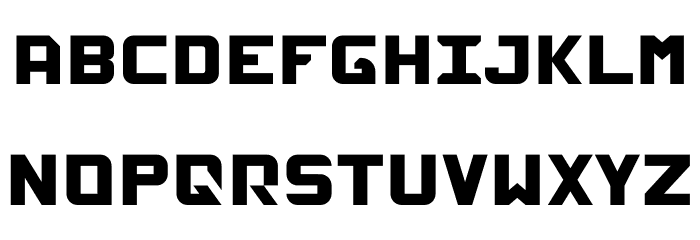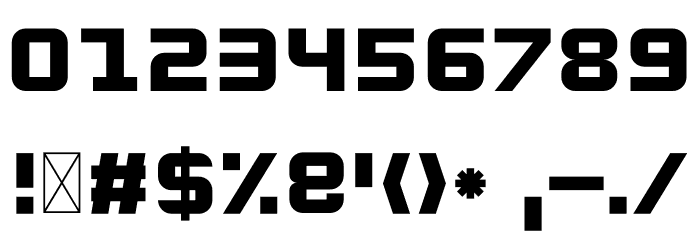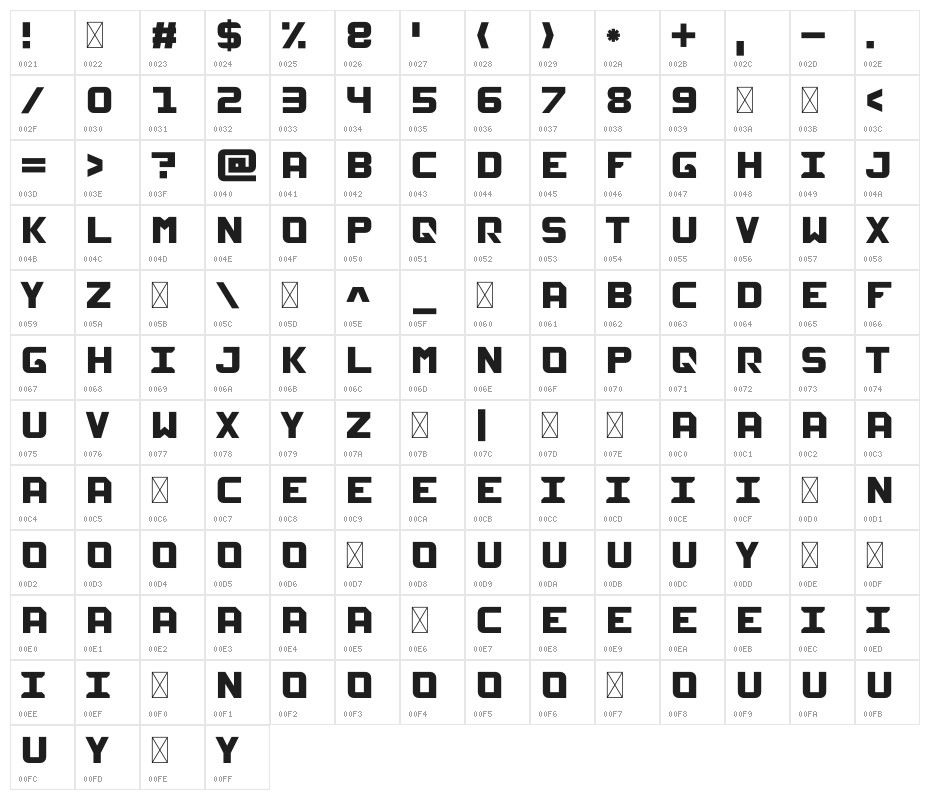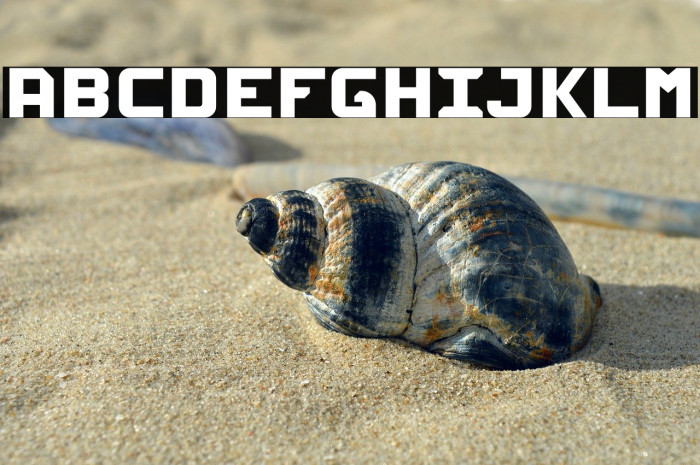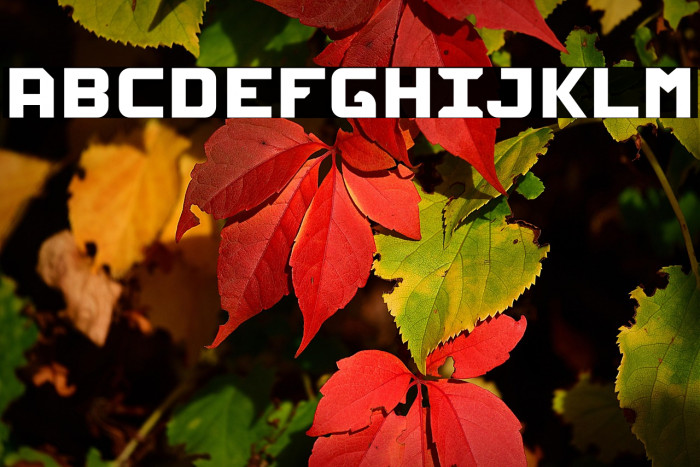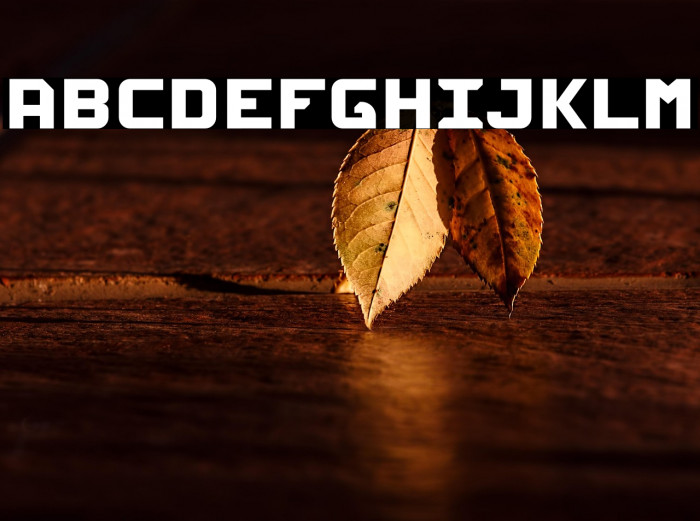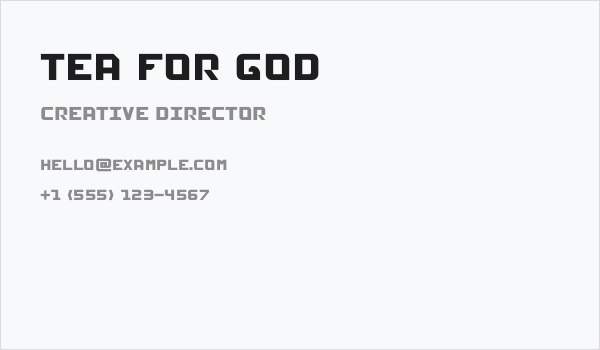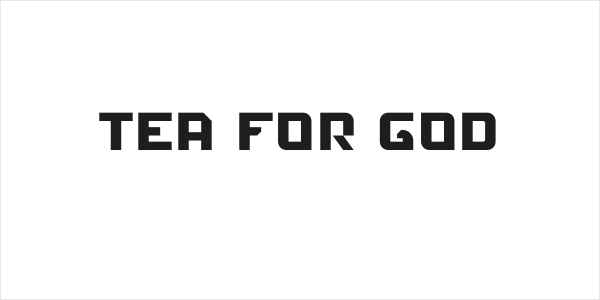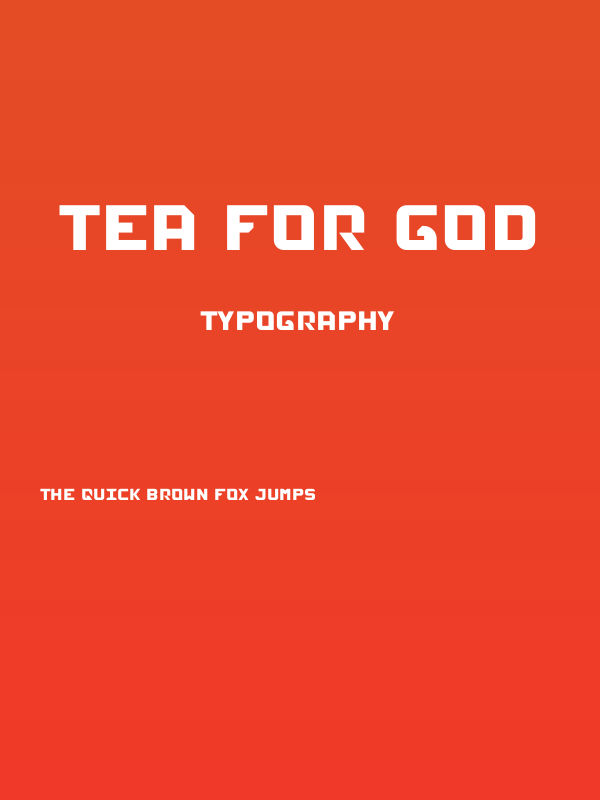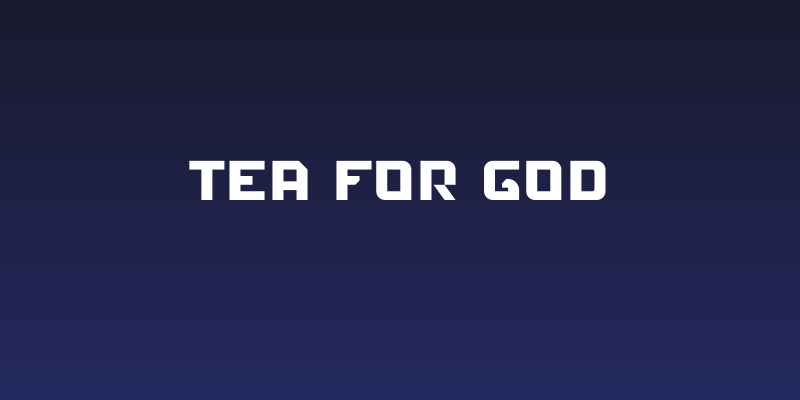
Tea For God Font
This font features a bold and geometric design with a futuristic flair. The characters are constructed with sharp angles and straight lines, giving it a modern and industrial appearance. The uppercase letters are particularly striking, with unique cuts and shapes that add a distinctive edge. The numerals and special characters maintain this angular style, ensuring consistency across all glyphs. The font's strong presence makes it ideal for attention-grabbing headlines and titles. Its design is both functional and artistic, making it suitable for a variety of creative projects.
- Font: Tea For God
- Proposed Projects: Ideal for sci-fi themed designs, video game graphics, posters, and branding that requires a modern and edgy look.